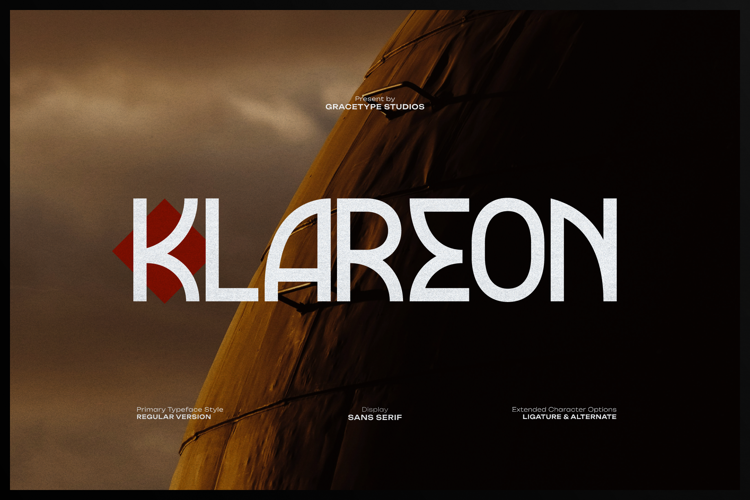
Klareon Font
Klareon | Display Sans Serif is suitable for any projects such as: logos, branding projects, homeware designs, product packaging, mugs, quotes, posters, shopping bags, t-shirts, book covers, name card, invitation cards, greeting cards, label, photography, watermark, special events, and all your other lovely projects that need a Sans Serif n taste.